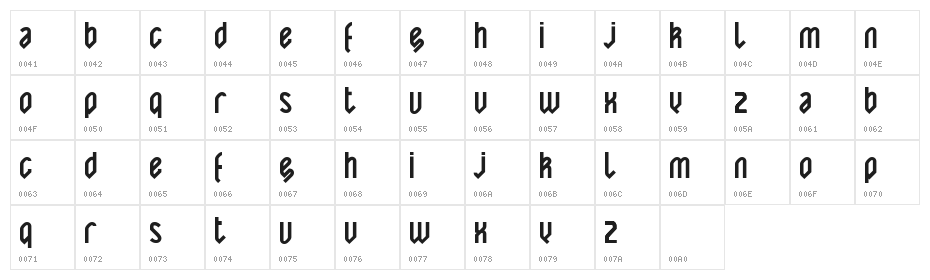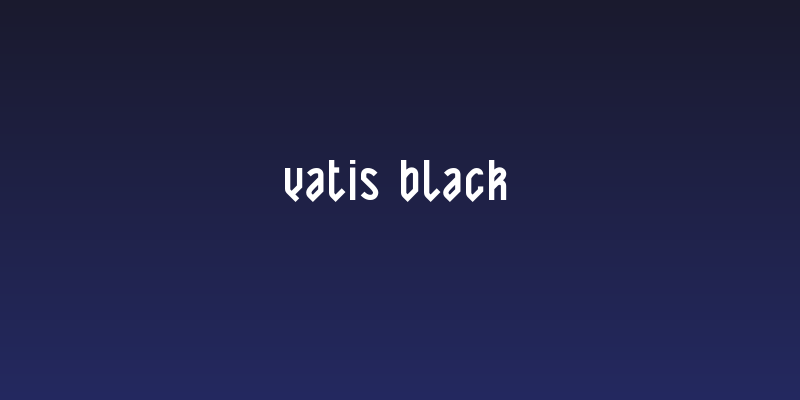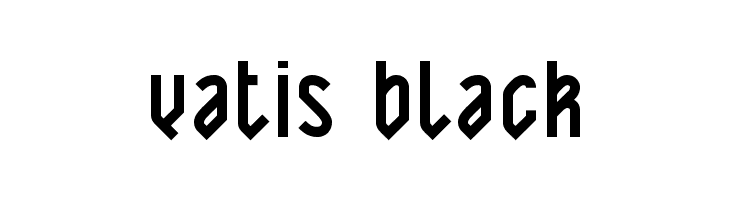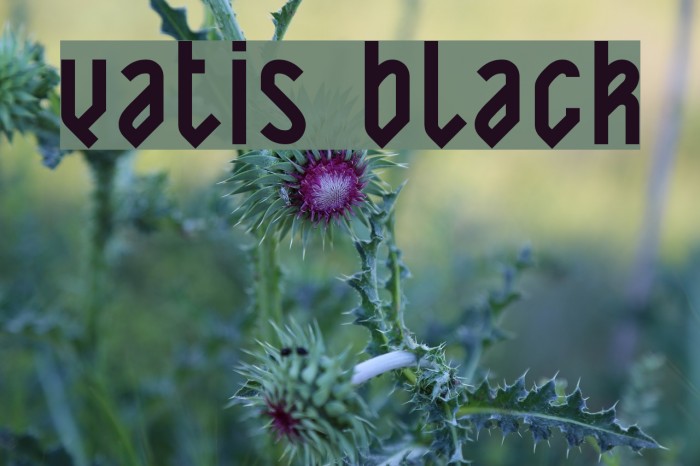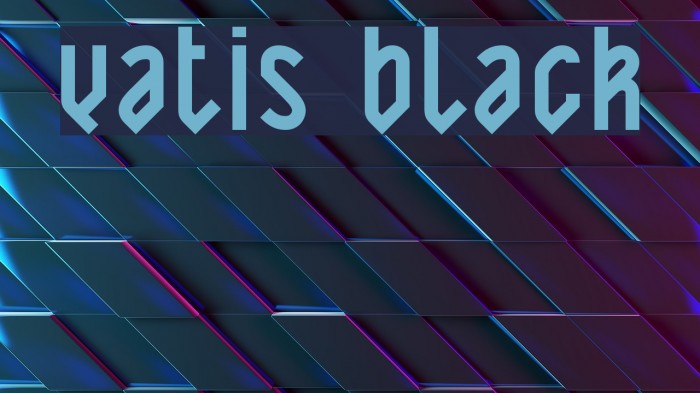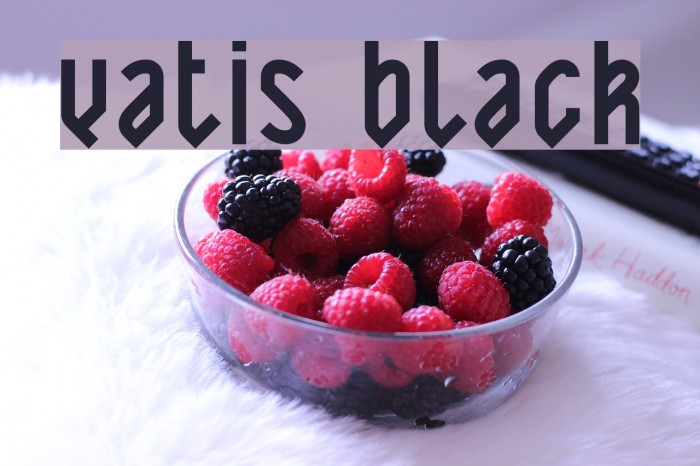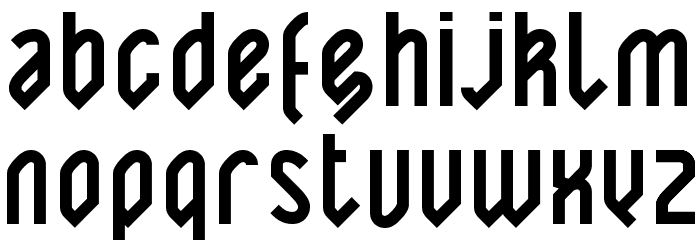
Yatis black Font
Yatis black Description
This font features a bold, geometric design with a modern and edgy aesthetic. The characters are constructed with sharp angles and clean lines, giving it a futuristic and tech-inspired look. The uppercase and lowercase letters maintain a consistent style, with unique elements such as pointed terminals and angular curves. The font's design is highly legible, making it suitable for various applications where a strong visual impact is desired. Its distinctive style can add a contemporary flair to any project.
| Proposed Projects | Ideal for branding, posters, digital interfaces, and any project requiring a modern, eye-catching typeface. |